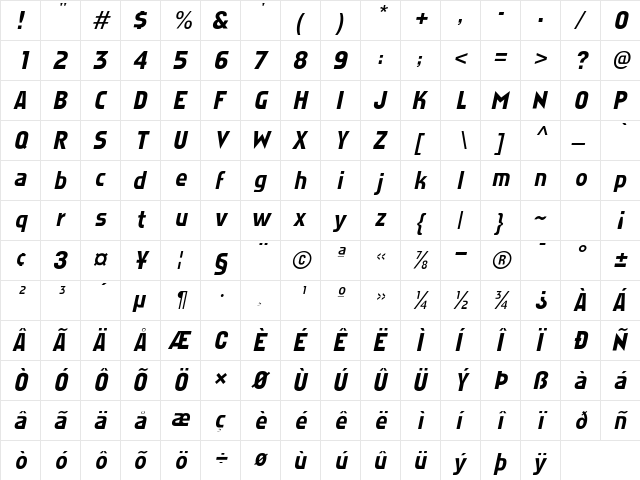
AgateSSK Italic
Design Context for AgateSSK Typeface
AgateSSK offers clean, dependable letterforms without strong stylistic allegiance, making it a practical choice for designers who need flexibility. The dynamic lean of this cut emphasises speed and emphasis in any layout.